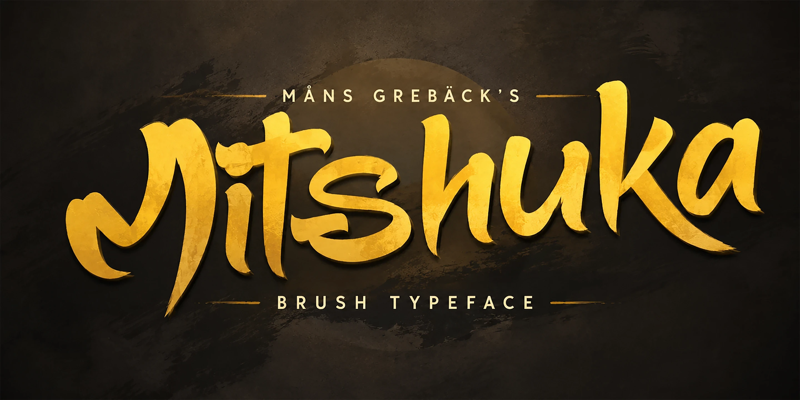
Mitshuka
CreatorMåns Grebäck
NOTE: This font is for PERSONAL USE ONLY! To purchase a commercial license, visit: https://www.mansgreback.com/product/mitshuka Mitshuka is a bold tag-brush hybrid with quick exit strokes and a strong forward lean. The lowercase has the rounded belly of a chisel-tip brush; the caps run taller and looser, with little hooks that flick out toward the next letter. Strokes shift from a heavy body to thin pulled tails, the way a hand actually moves under speed. The slant is consistent but never strict — letters lean into each other rather than march in line. It belongs on the side of a parked van, or stencilled in a single afternoon along the back wall of a skate shop. For questions, please visit https://mansgreback.com/faq